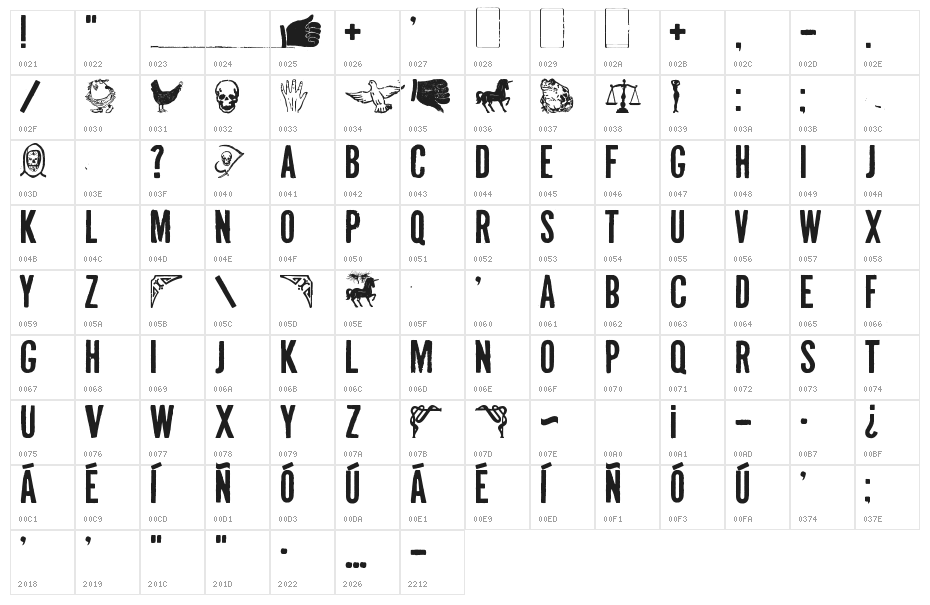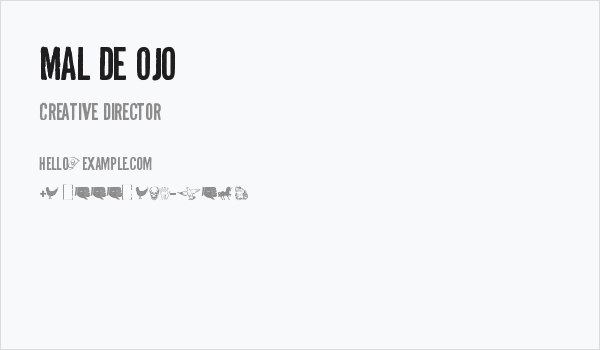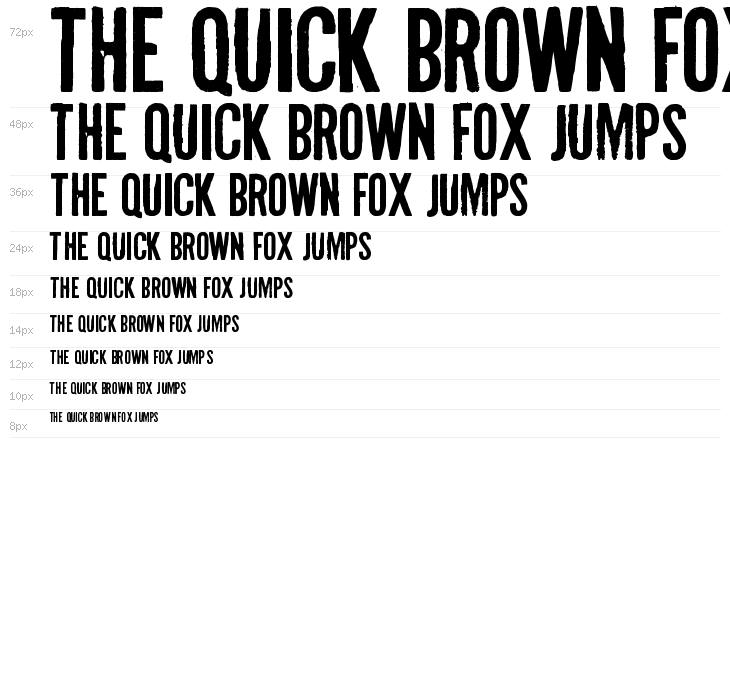
Mal de Ojo Font
Mal de Ojo Description
This font features a bold and distressed style, characterized by its rough, textured edges and strong presence. The uppercase letters are tall and narrow, giving a condensed appearance, while maintaining a consistent weight throughout. The font exudes a vintage and rugged aesthetic, making it ideal for projects that require a touch of edginess and character. The inclusion of unique symbols and illustrations, such as animals and hands, adds an element of creativity and uniqueness, enhancing its appeal for artistic and unconventional designs.
| Proposed Projects | Ideal for posters, album covers, branding projects, and any design requiring a bold, vintage look. |